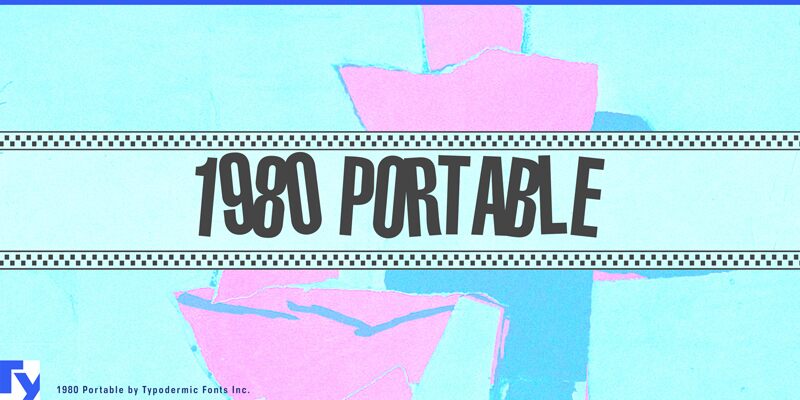
The 1980 Portable font, created by Typodermic Fonts, exudes a playful, retro charm that immediately captivates the eye. With its bouncy, condensed letterforms and distinctive ska-inspired aesthetic, this display typeface evokes a sense of nostalgia and energy. The font's decorative style and attention to detail make it a standout choice for designers seeking to infuse their projects with a touch of vintage flair.
The 1980 Portable font's versatility shines through, making it a versatile choice for a variety of design applications. Its compact width and distinctive character lend themselves well to headlines, logos, and branding materials, where its visual impact can truly shine. Whether you're crafting a retro-themed poster, designing a vibrant album cover, or seeking to add a touch of personality to your packaging, the 1980 Portable font is a compelling option that is sure to capture the attention of your audience.